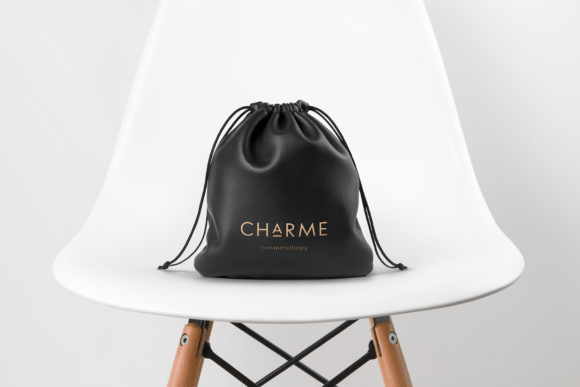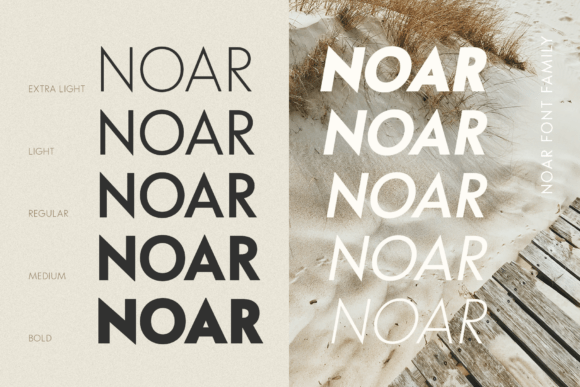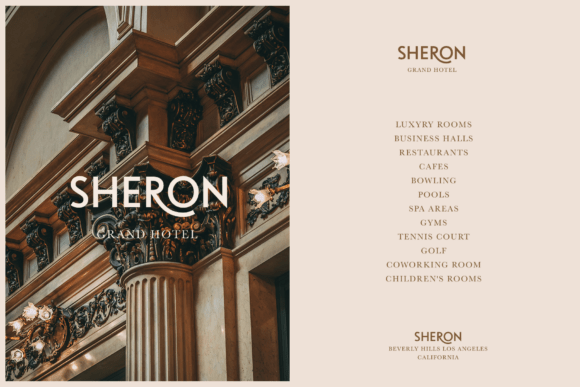
Introduction to Noar Font
Noar – A Clean and Versatile Geometric Sans Serif Noar is a modern geometric sans serif typeface featuring moderately open apertures, low visual contrast, and exceptional legibility.
👤 Author Pasha Larin
Designed with clarity and utility in mind, it includes 5 weights with matching italics, ranging from Extra Light to Bold With its minimalist aesthetic and practical design, Noar is ideal for a wide range of creative and professional applications.